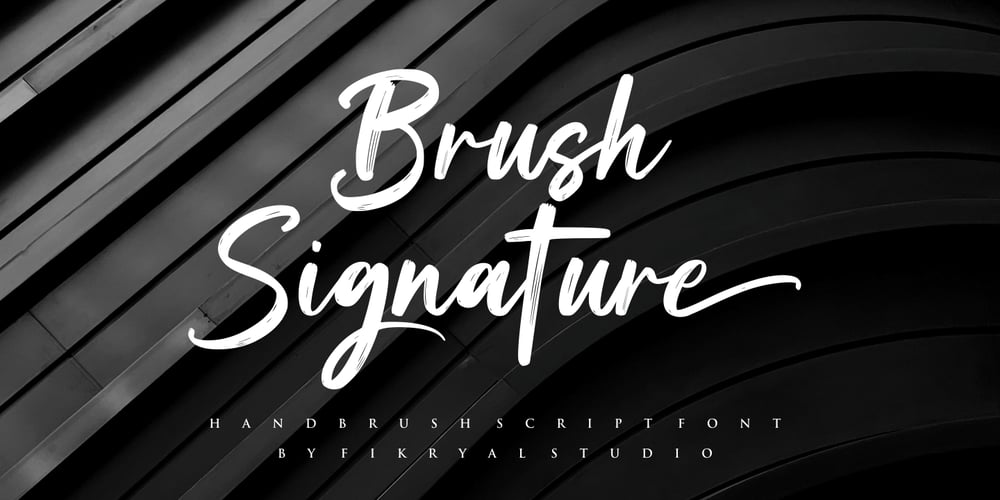
Brush Signature Font Family was designed by Muhammad Fikry and published by Fikryal. Brush Signature contains 1 styles and family package options. Brush Signature is a hand brush font perfect for crafting, branding, invitation, stationery, wedding designs, social media posts, advertisements, product packaging, product designs, label, photography, watermark, special events, or anything.Brush Signature comes with a full set of uppercase and lowercase letters, ligatures, multilingual symbols, numerals, and punctuation.